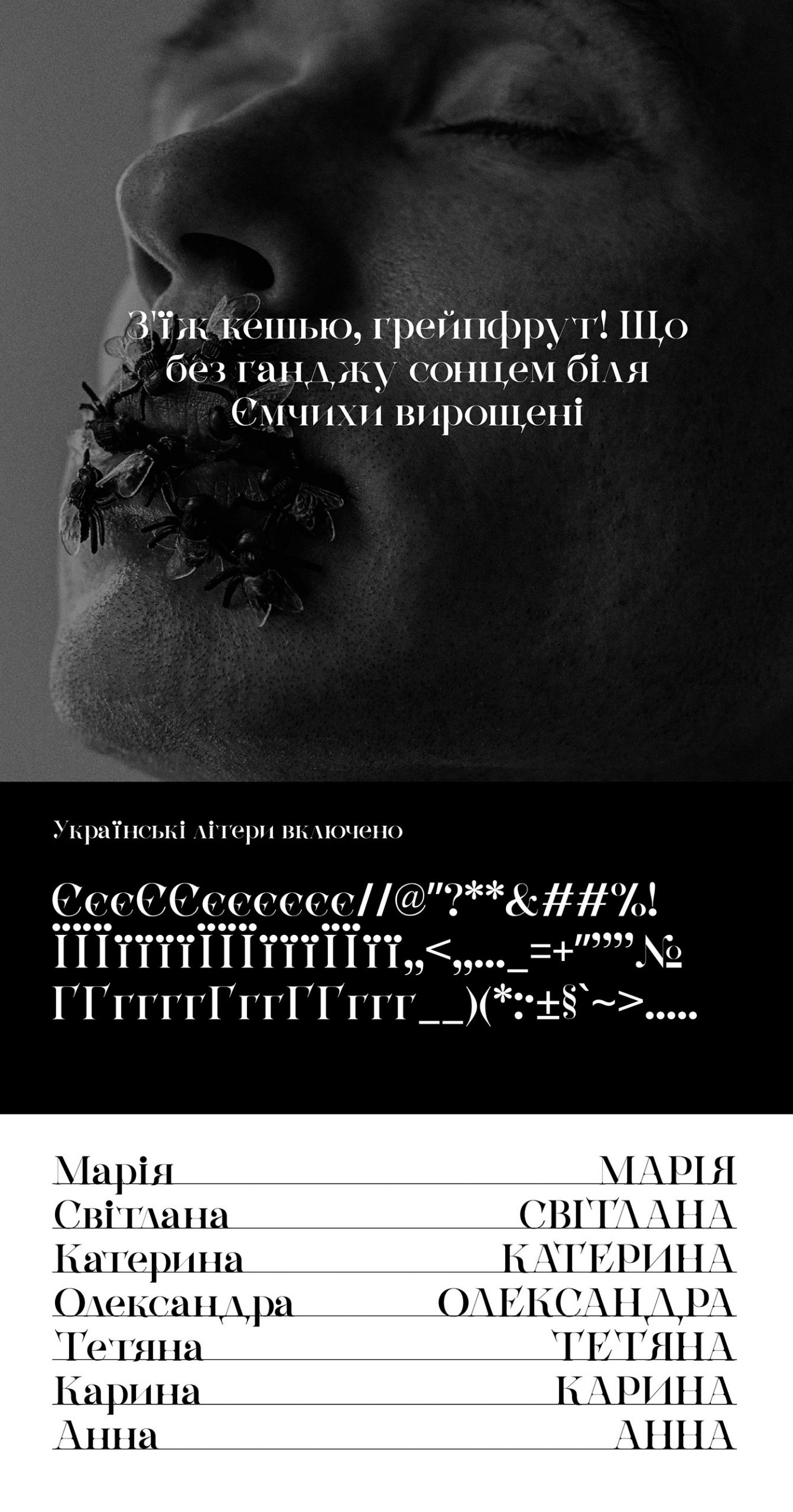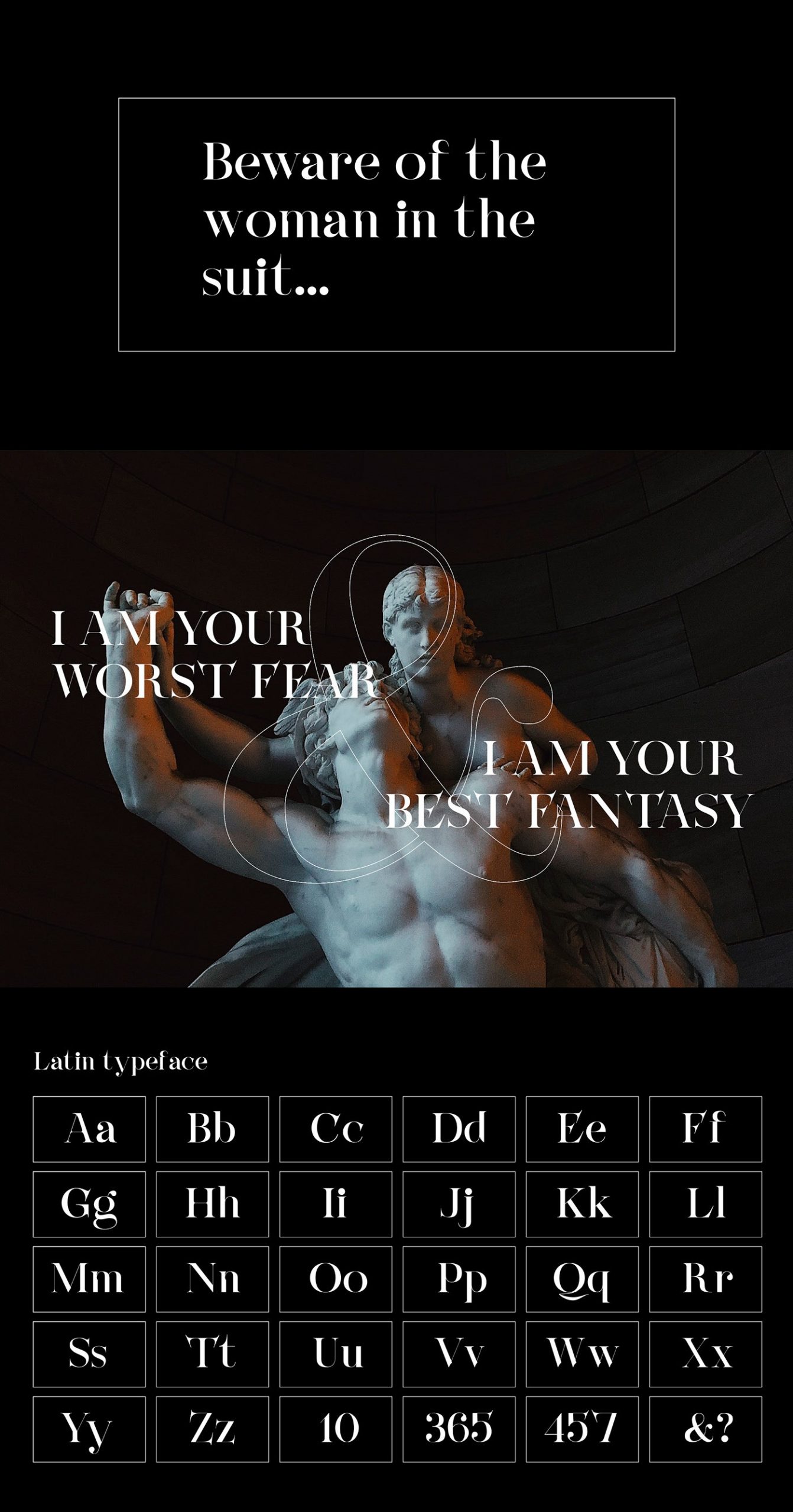
Beware Font
Beware Serif Font
This is a thick lettered and chic serif font package by Sasha Mouse, featuring the perfect amount of trendiness. Eligade is perfect choice for people looking for clean, modern, minimalist, elegant, beauty design styles. Suitable for almost any graphic designs such as logo, branding materials, business cards, gift cards, t-shirt, cover, thumbnail, print, poster, photography, quotes .etc